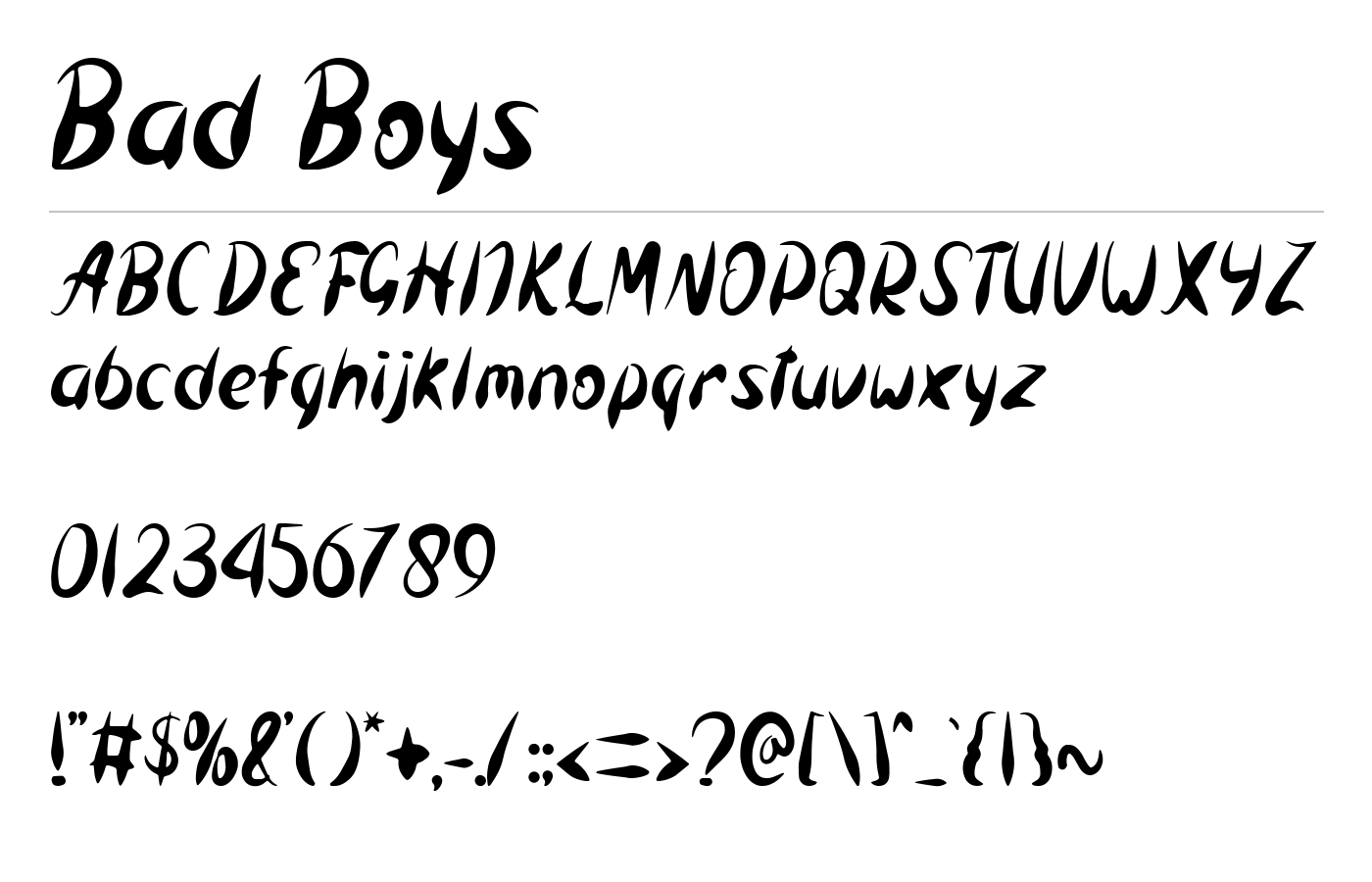
Bad Boys Font is a lively and bold script-style typeface with a playful, hand-drawn feel. Its irregular strokes and lively curves give it a dynamic, edgy personality perfect for creative projects, youth-oriented branding, and informal headlines. This font works best in designs that need a distinctive, energetic touch, such as posters, logos, and casual packaging.
Bad Boys Font
About Bad Boys Font